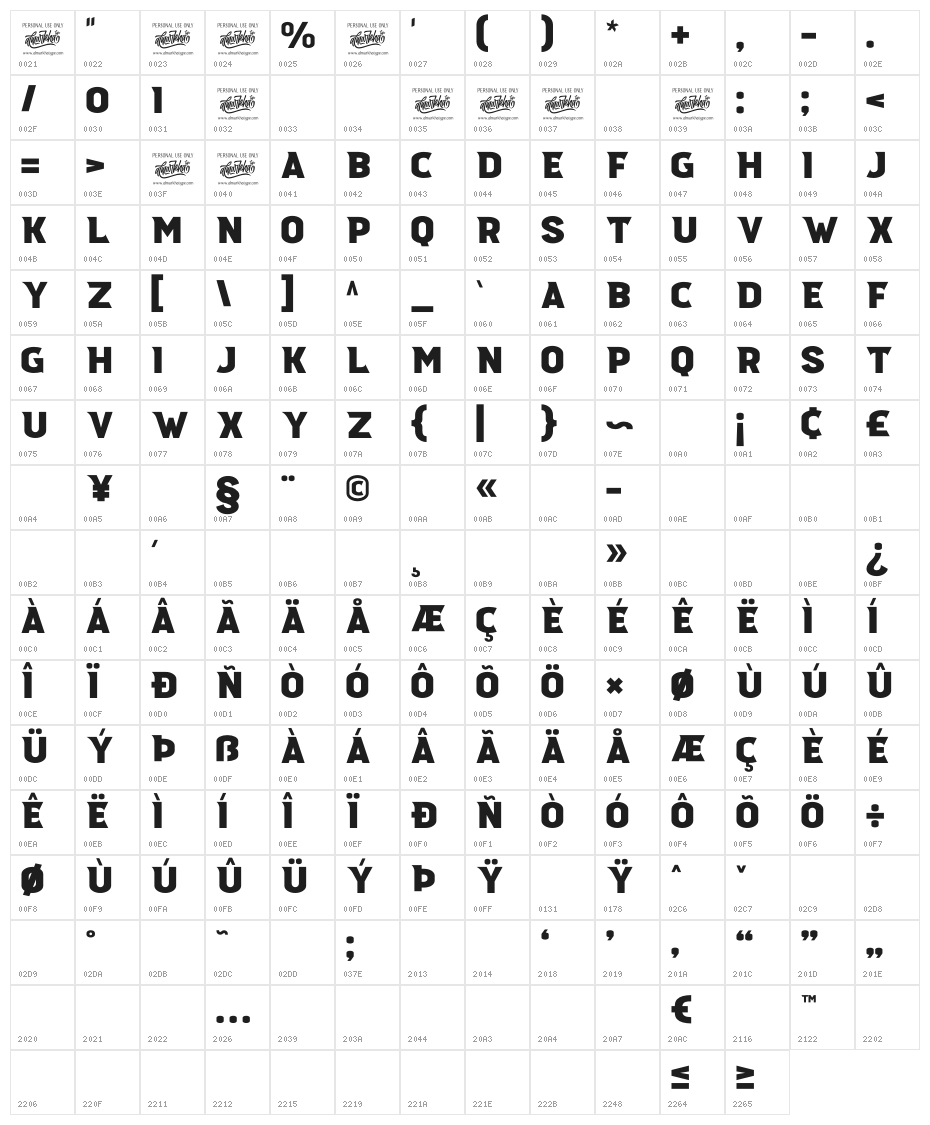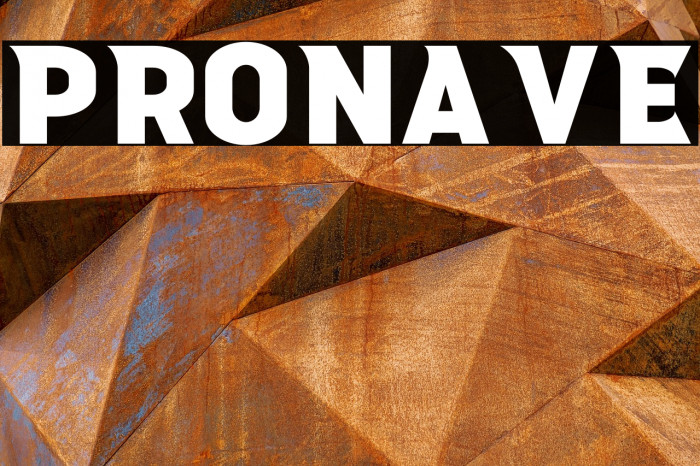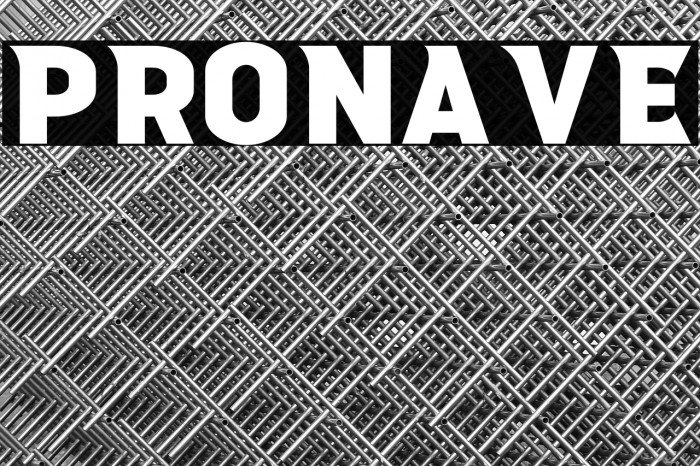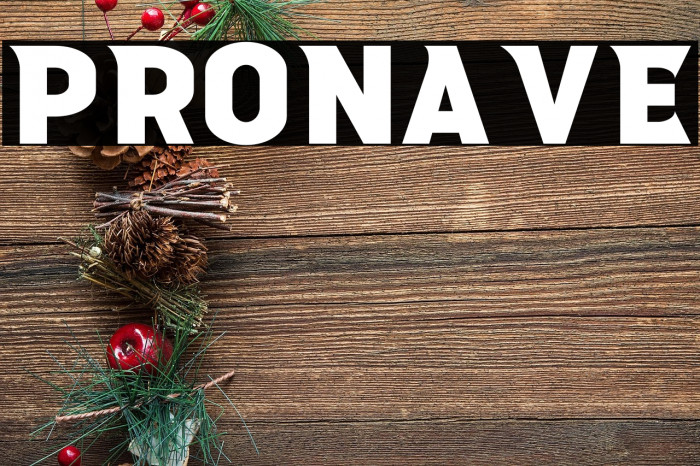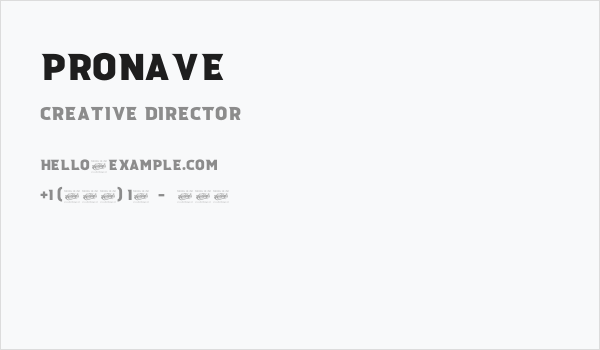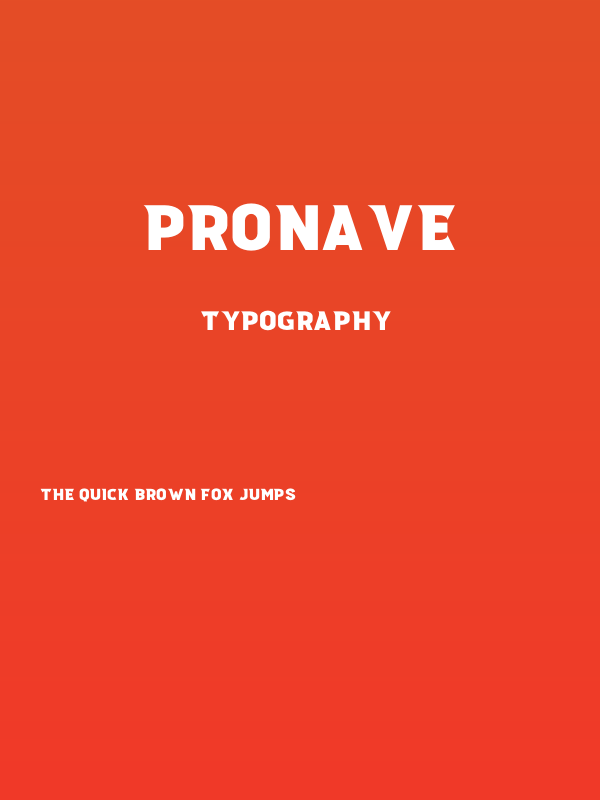
Pronave Font
Pronave Description
This font features bold, geometric letterforms with a strong presence, making it ideal for impactful designs. The uppercase letters are uniform in height, with sharp angles and clean lines that convey a sense of modernity and strength. The absence of serifs and the consistent stroke width throughout the characters contribute to its bold appearance. The numerals and special characters maintain the same bold style, ensuring consistency across all text elements. This font is perfect for creating attention-grabbing headlines, posters, and branding materials that require a powerful visual impact.